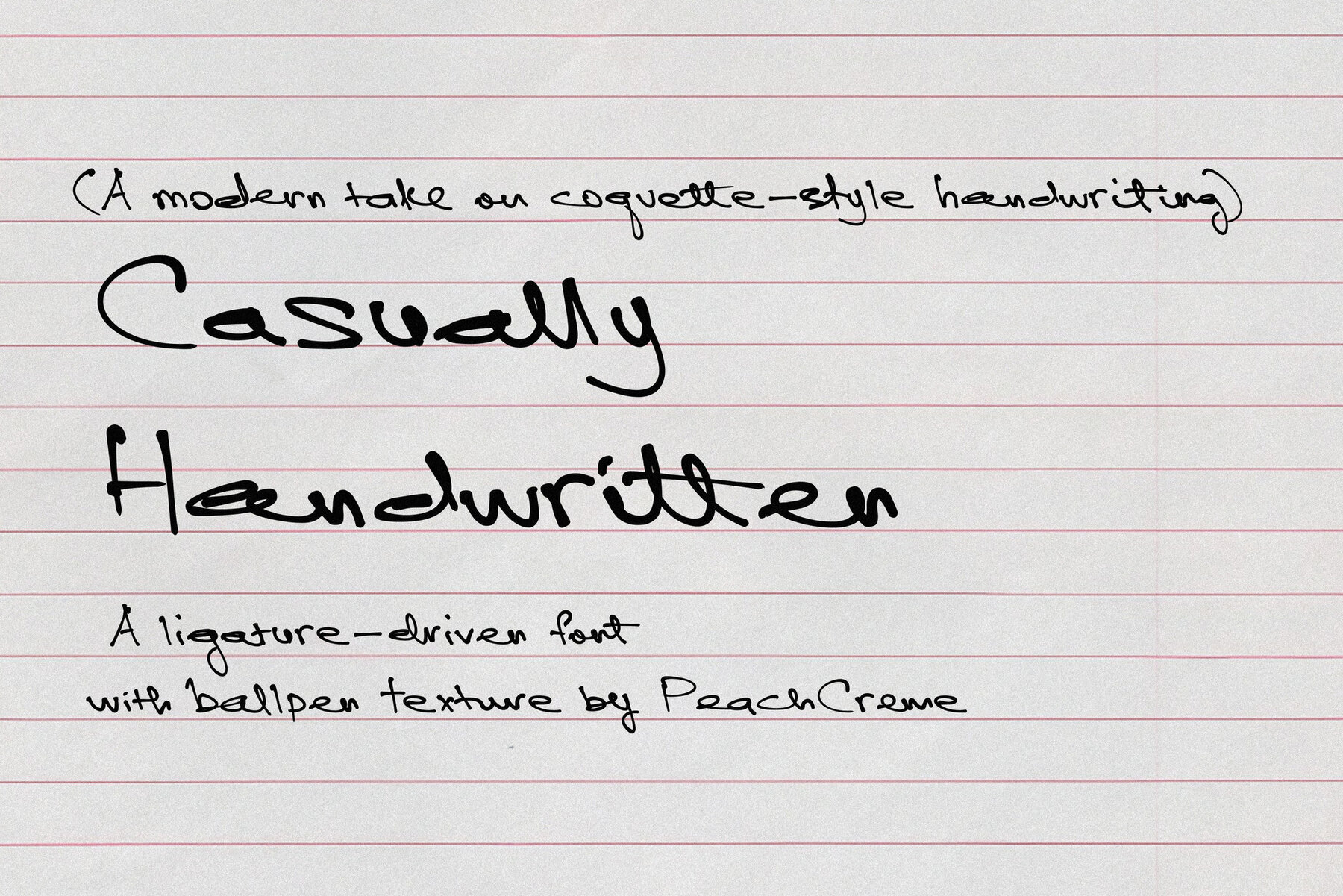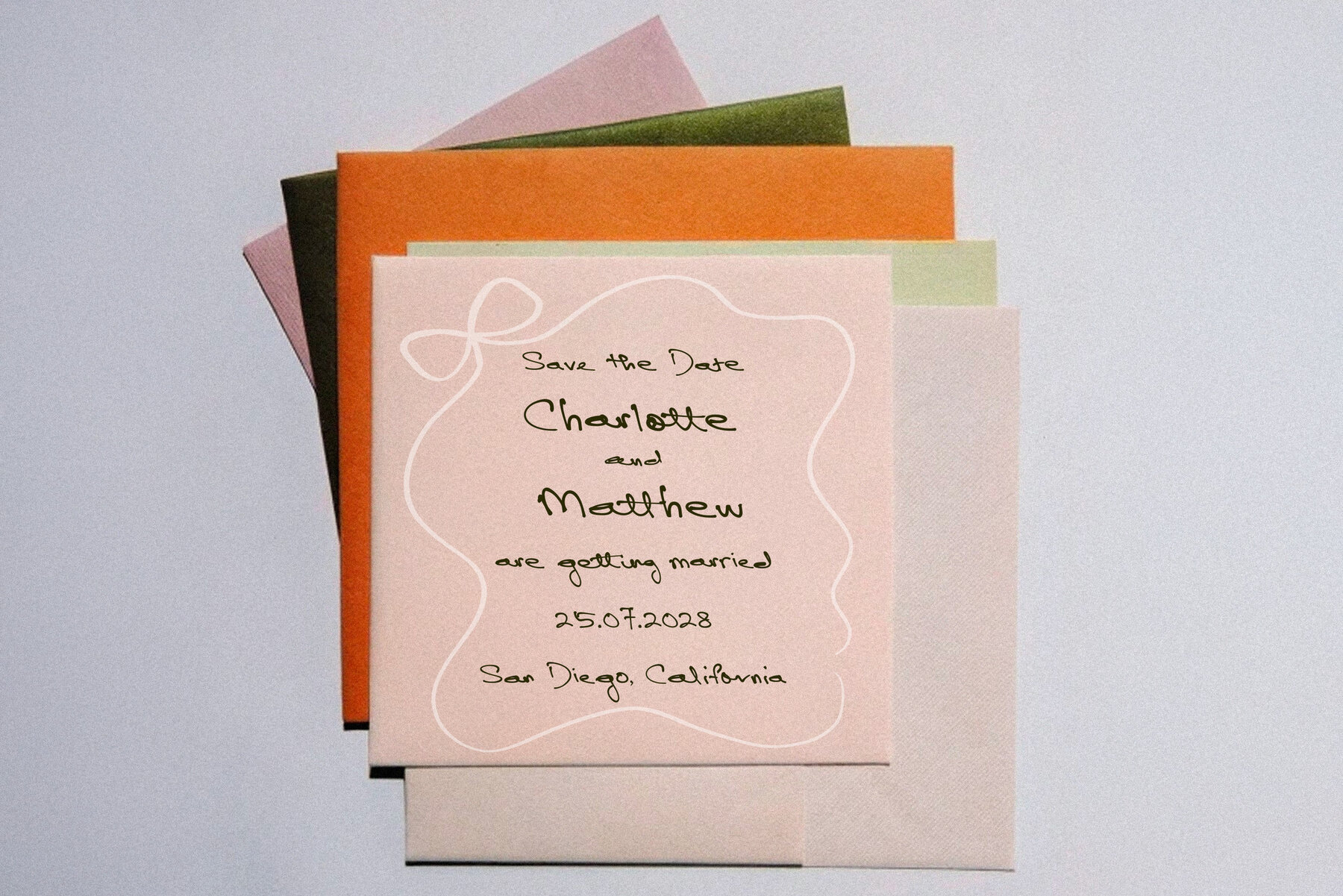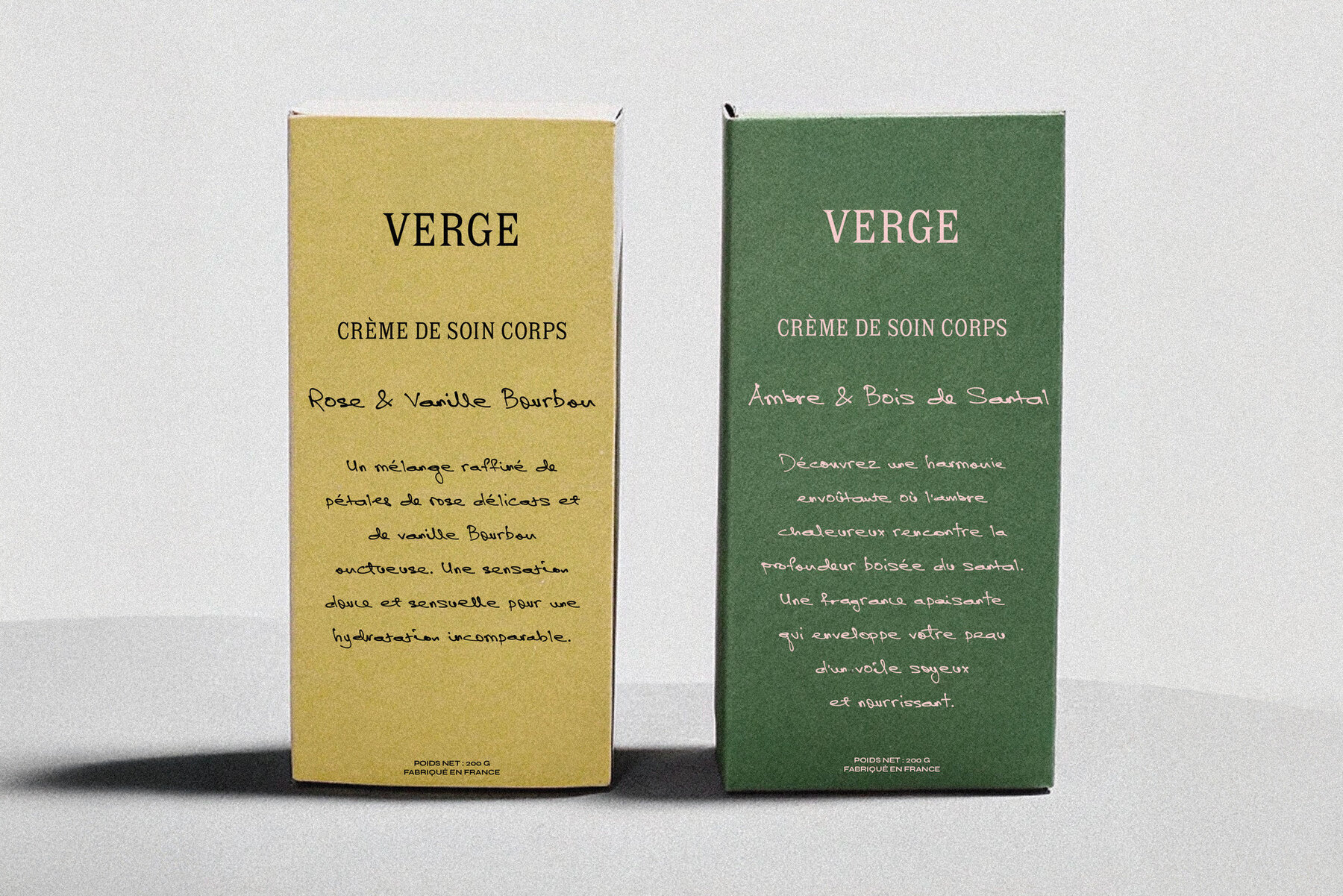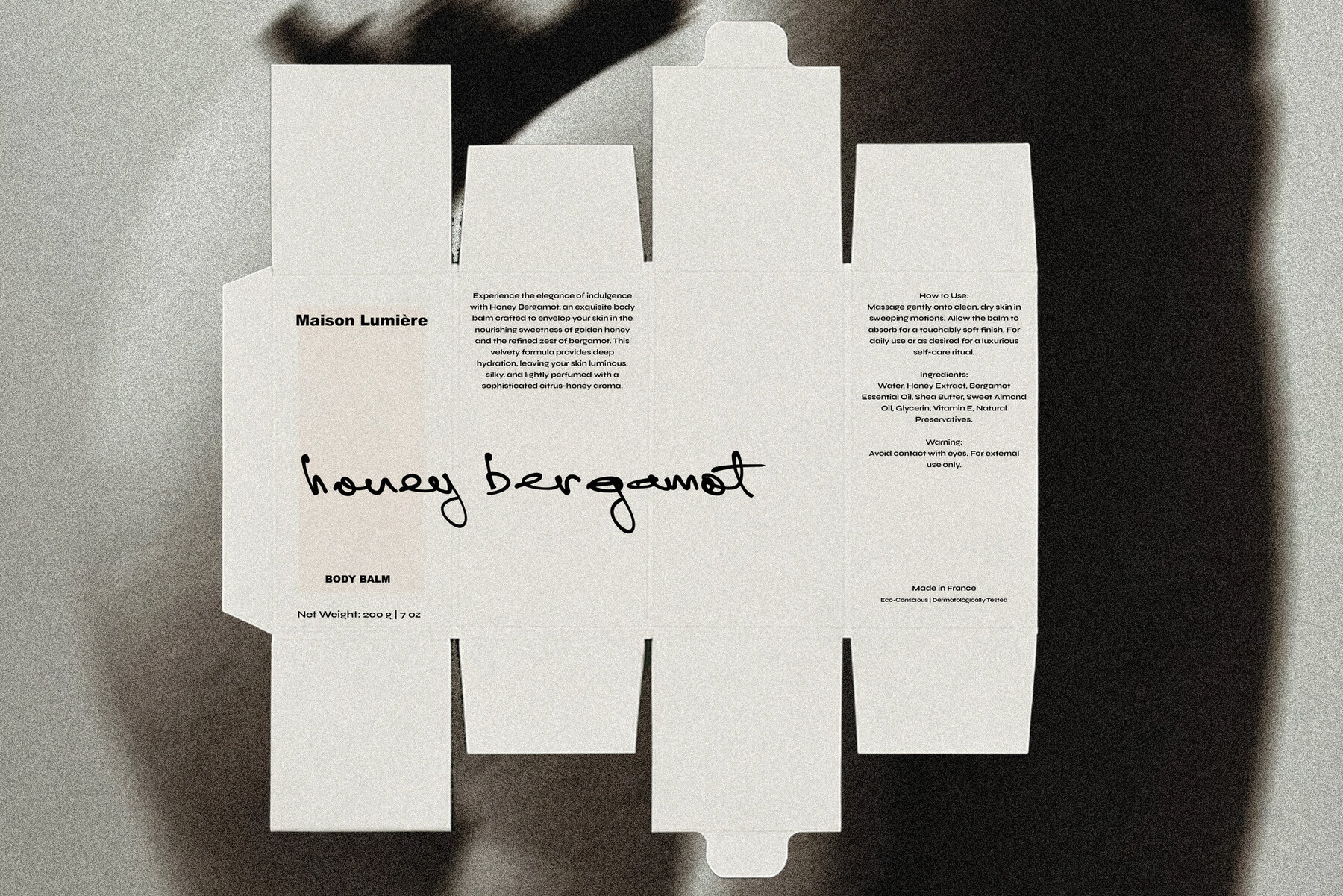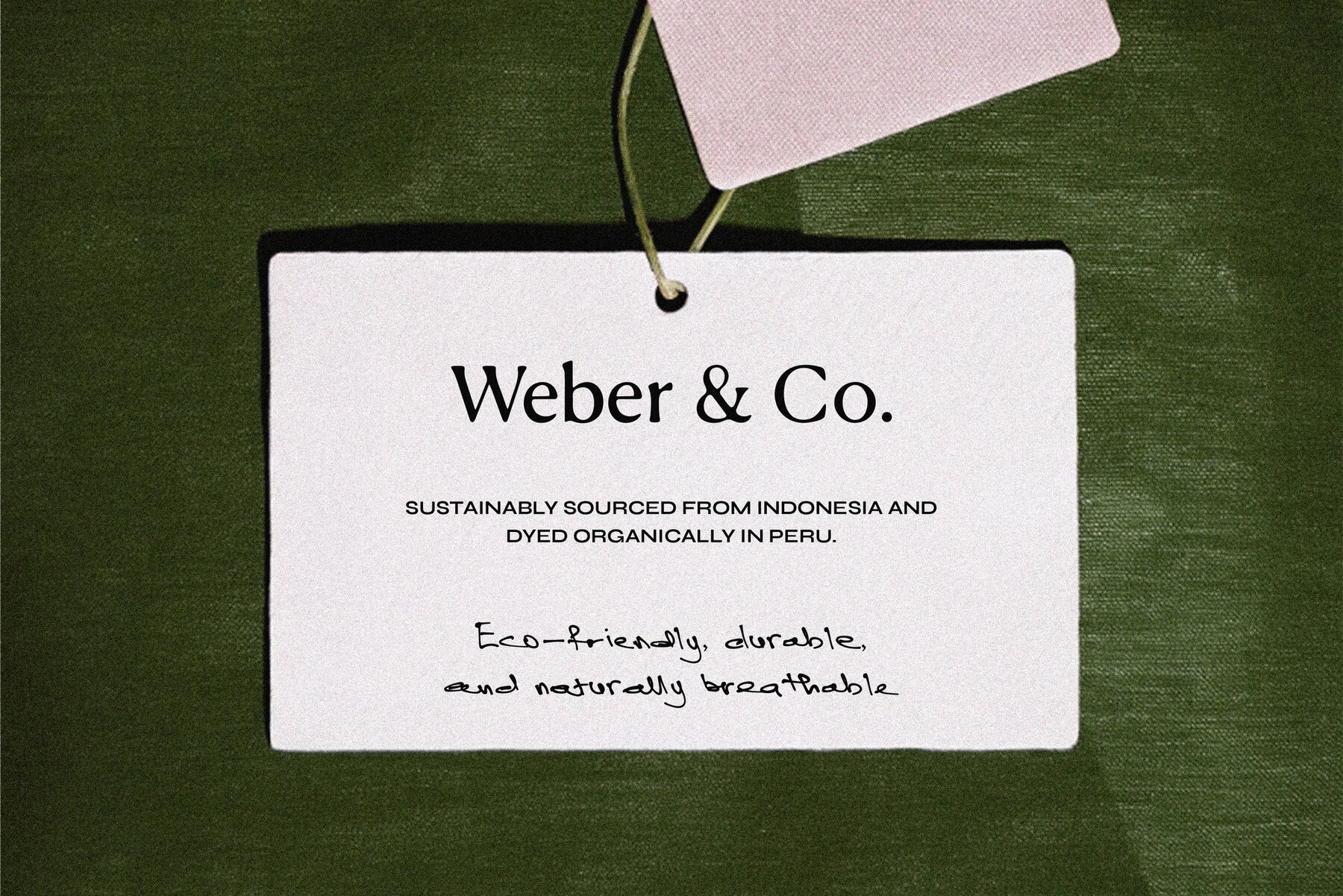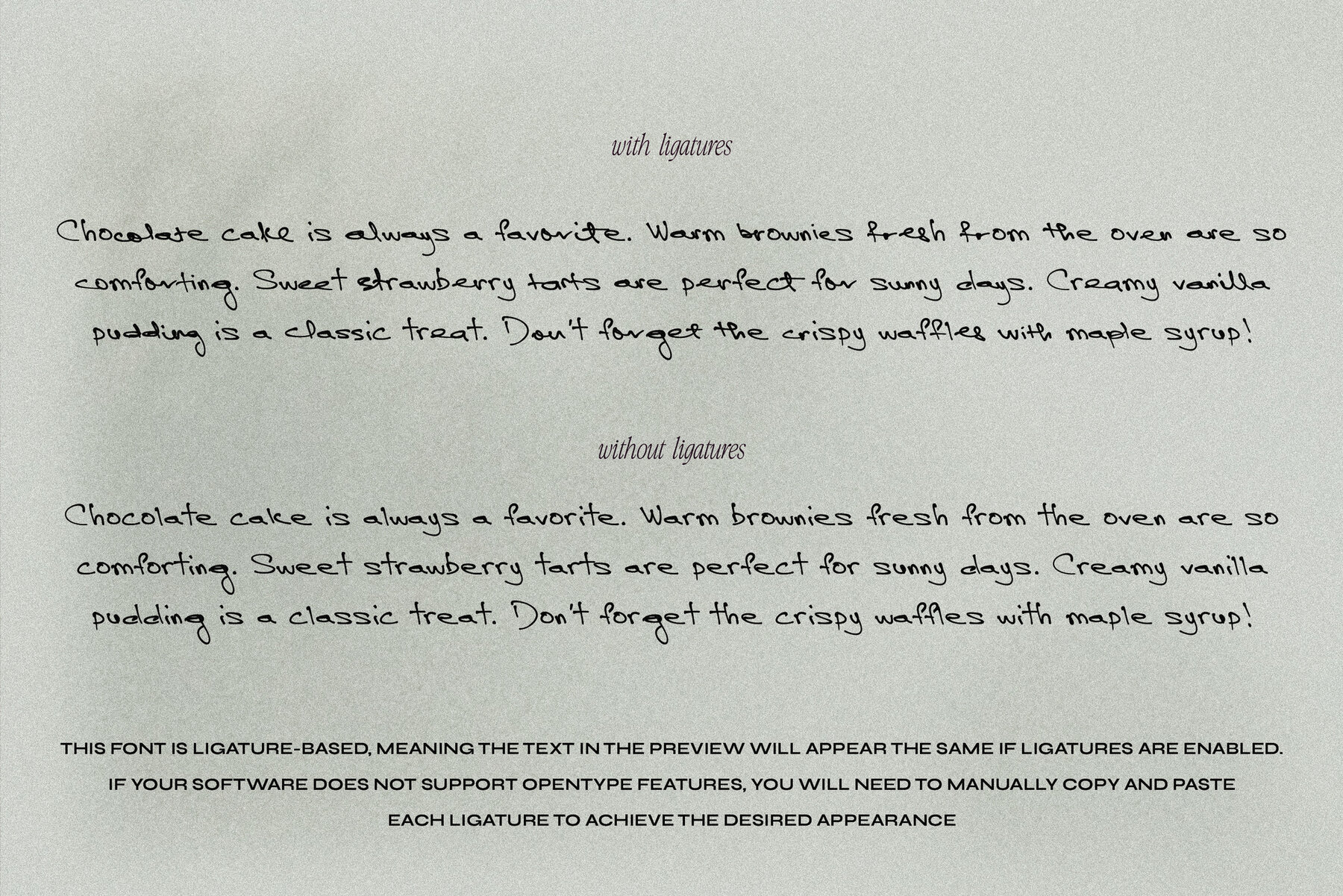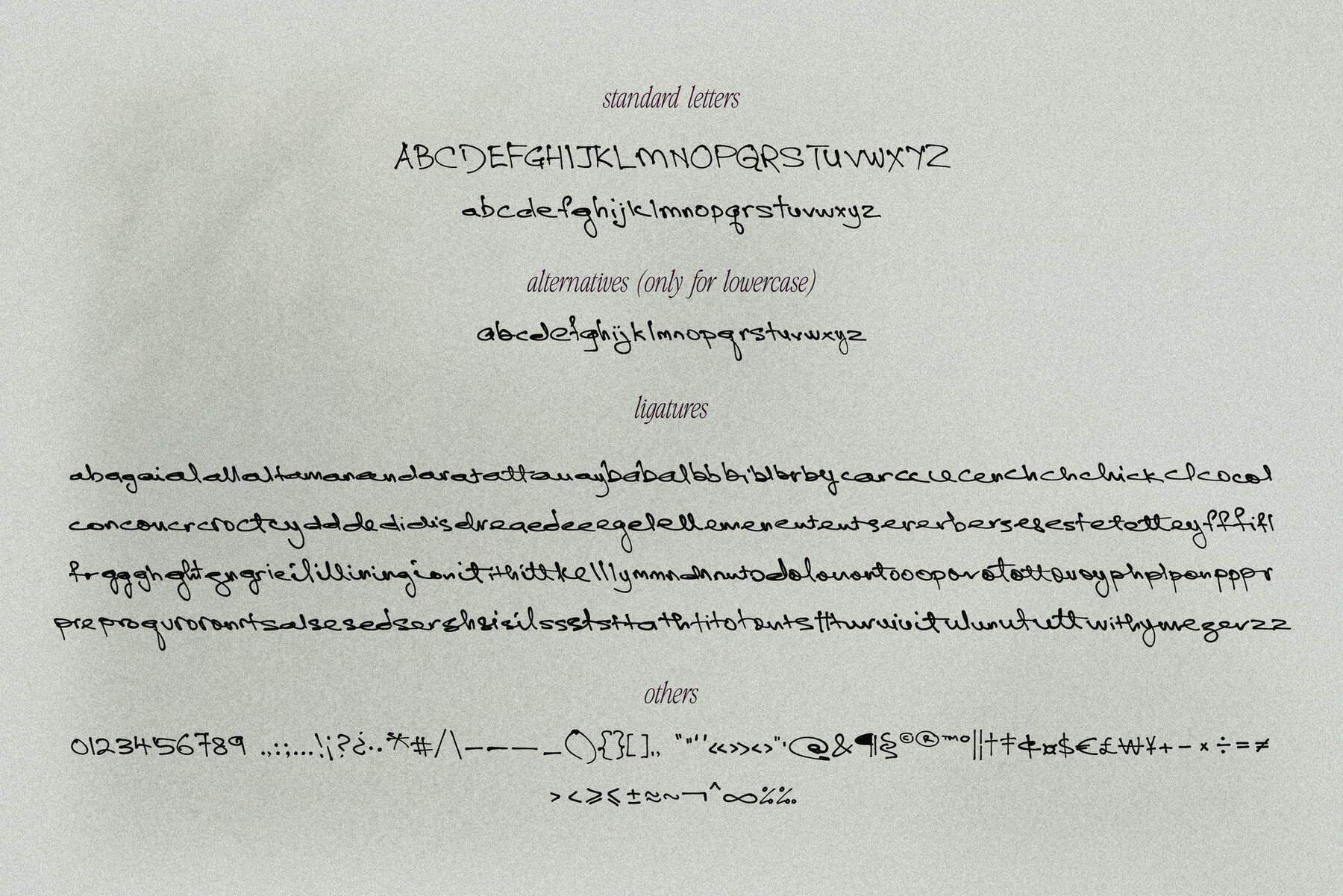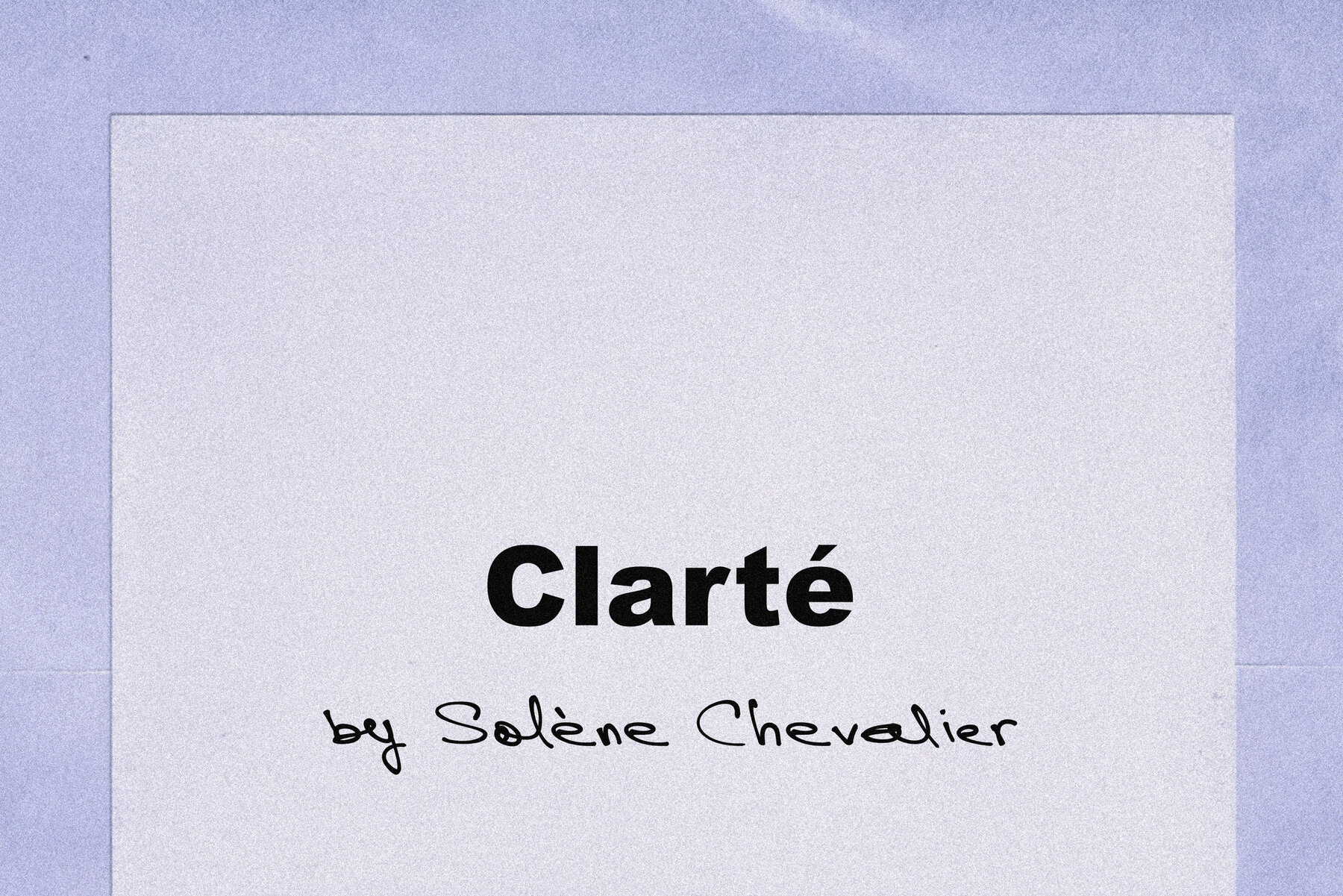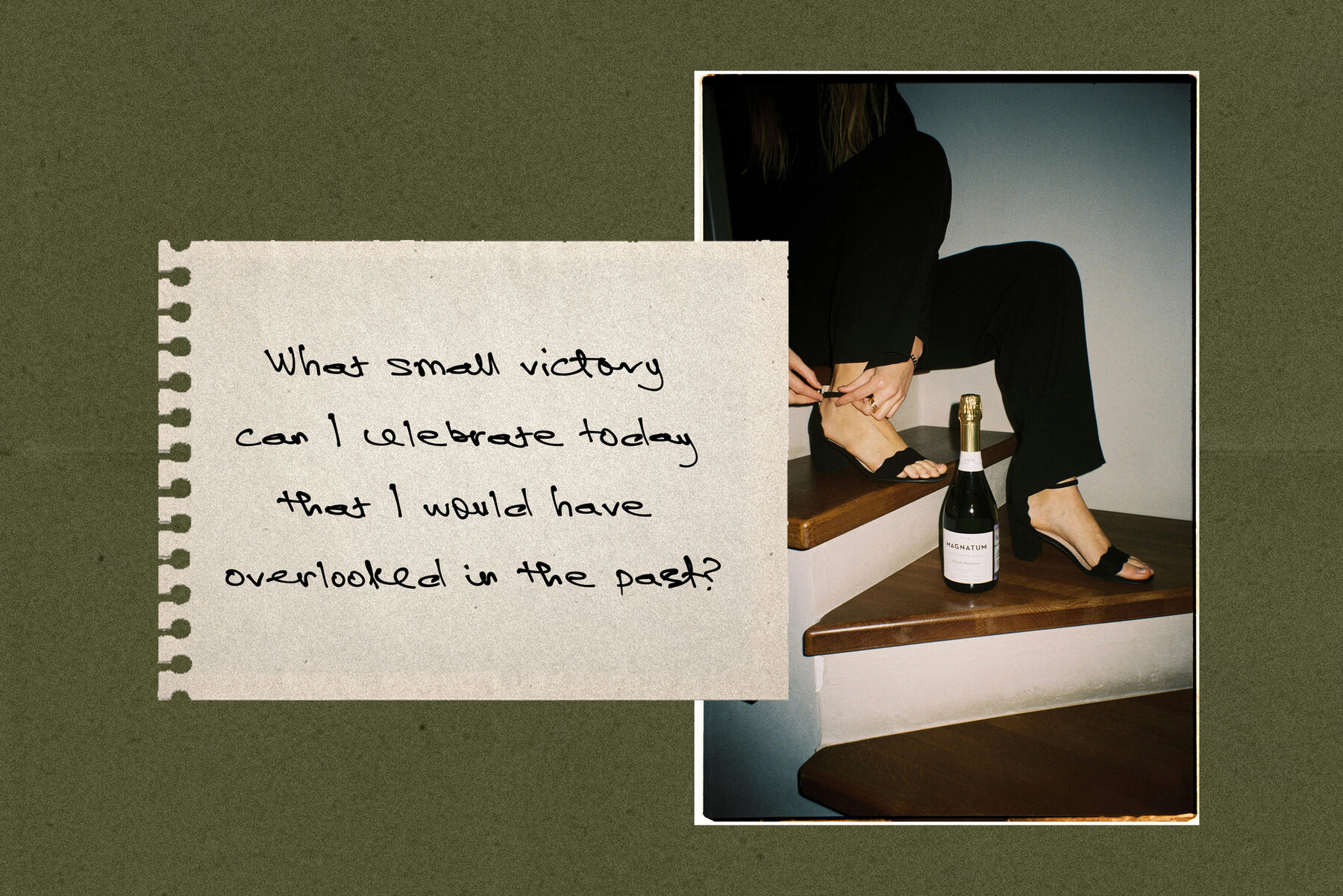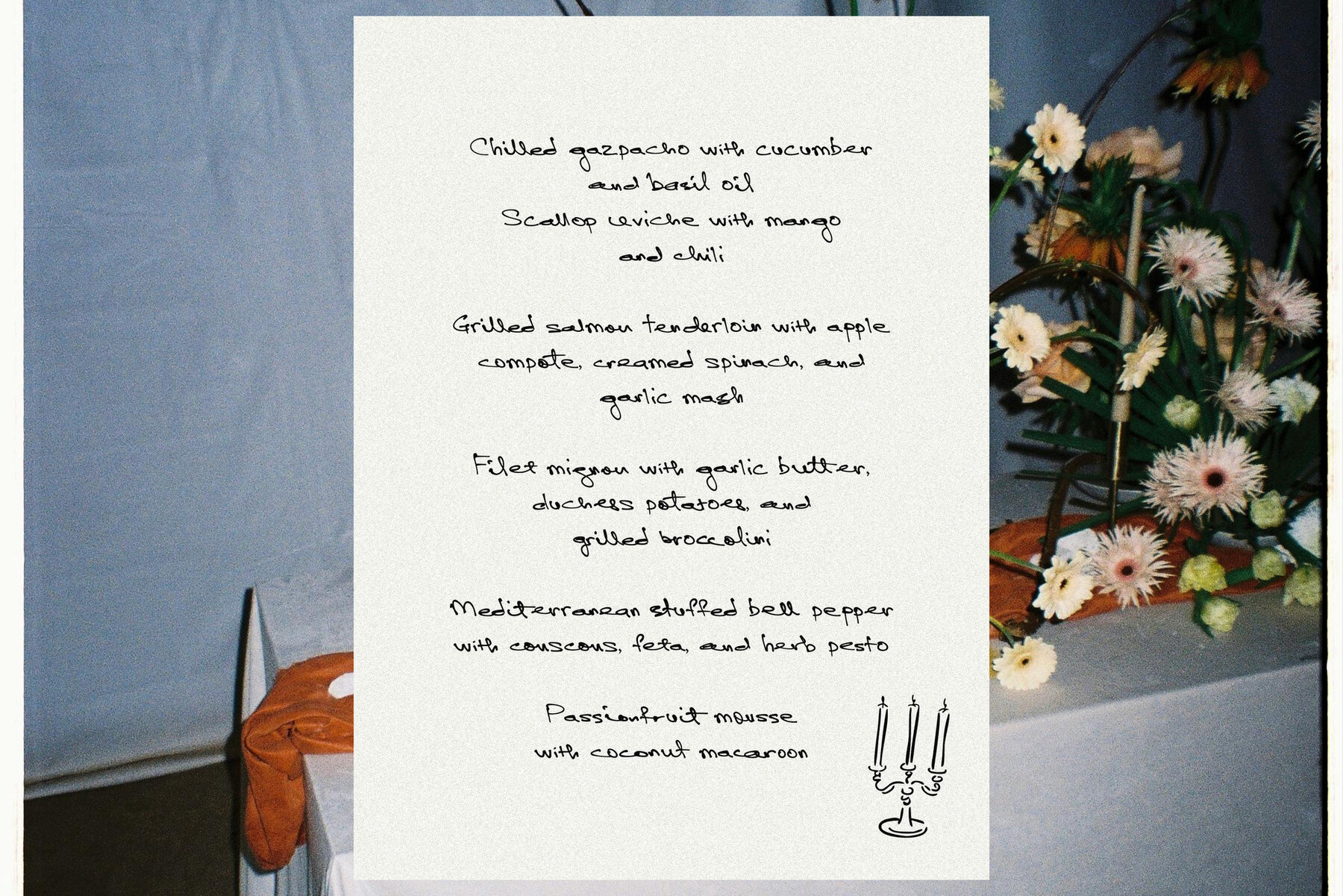
Casually Handwritten Font
Casually Handwritten
Casually Handwritten captures the essence of genuine handwriting with its charming imperfections. Designed with 135 ligatures and alternates exclusively for lowercase letters, this font achieves a seamless handwritten aesthetic that remains authentic and unrefined. It's ideal for creators who appreciate the unique, human touch of handwriting and aren't seeking perfect uniformity.
Perfect for various applications, Casually Handwritten brings a personal and unedited flair to projects like packaging, wedding stationery, or journaling. This font embraces the unique quirks that define human handwriting, making it an excellent choice for those aiming to convey sincerity and warmth in their design work.